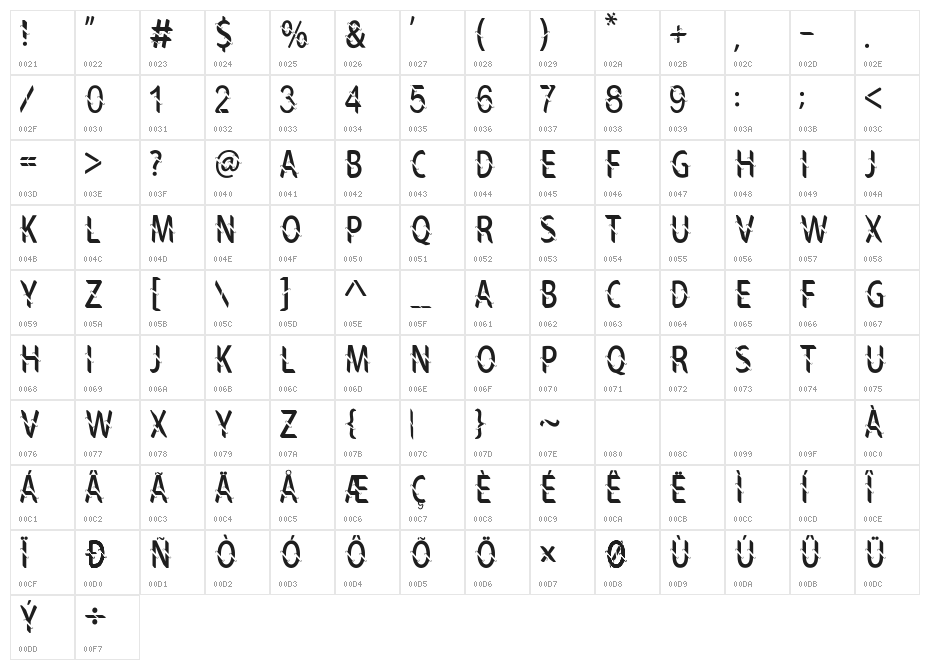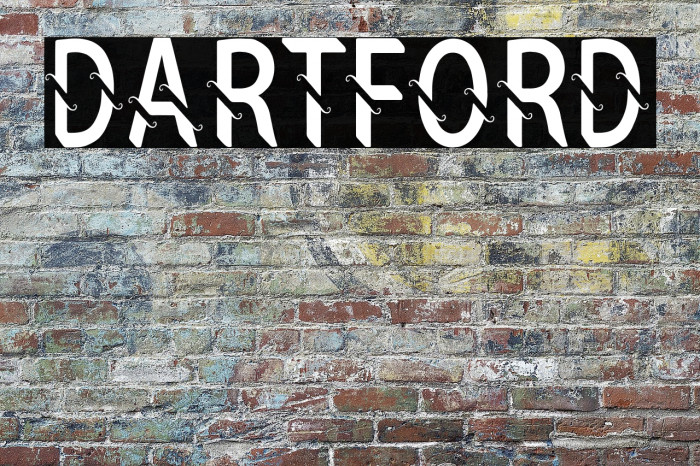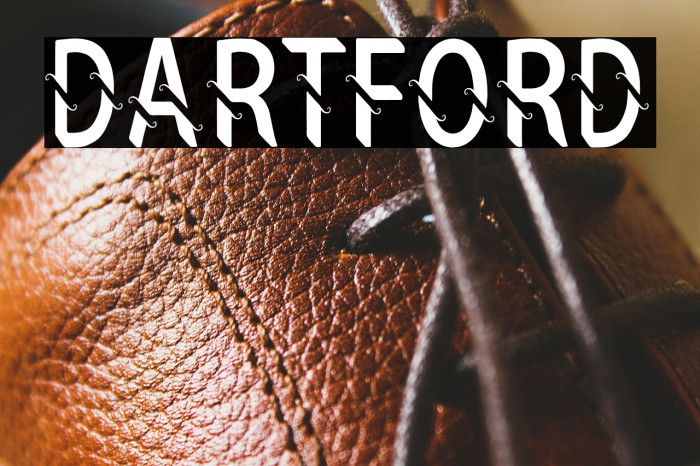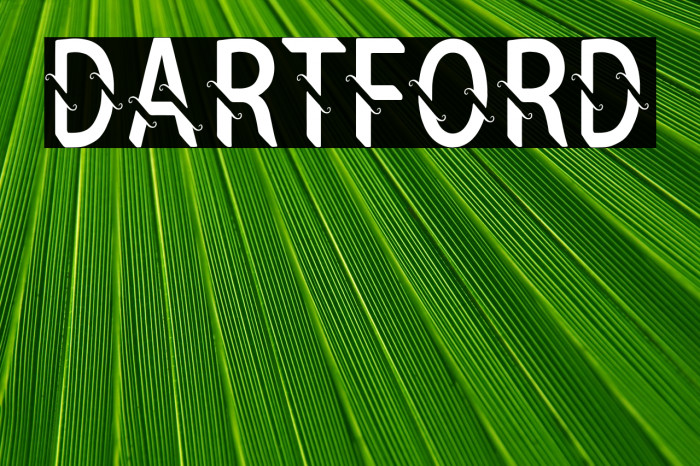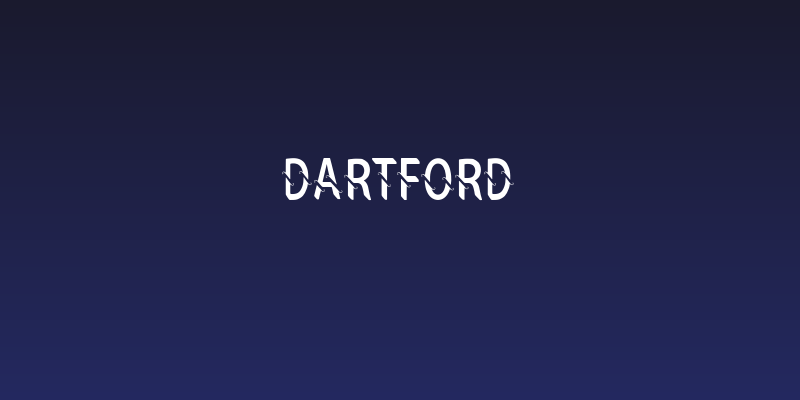
DARTFORD Font
DARTFORD Description
This font features a bold and striking design with a unique decorative element that runs through the center of each character, creating a distinctive and eye-catching look. The uppercase and lowercase letters maintain a consistent style, with sharp angles and clean lines that give it a modern and edgy appearance. The numbers and special characters are equally bold, ensuring a cohesive look across all text. This font's unique design makes it stand out, perfect for projects that require a strong visual impact.
| Proposed Projects | Ideal for branding, posters, headlines, and any design project that requires a bold statement. |